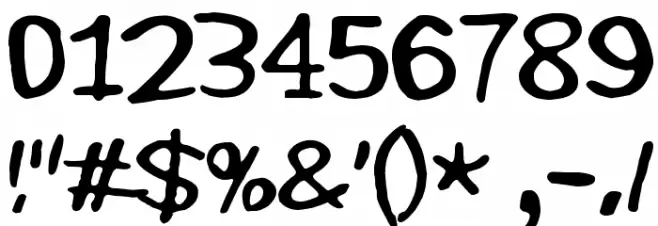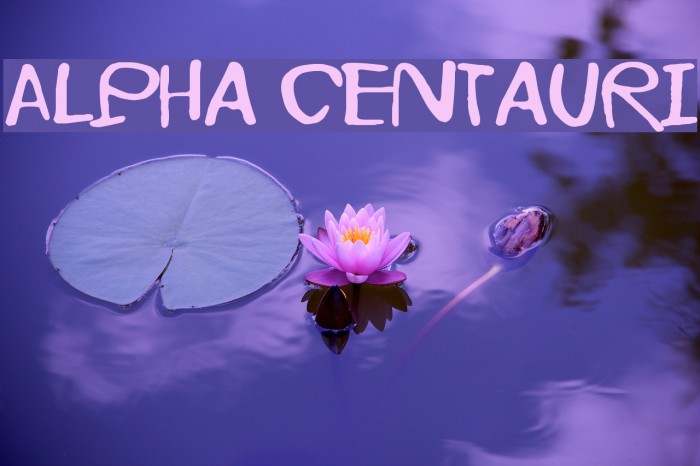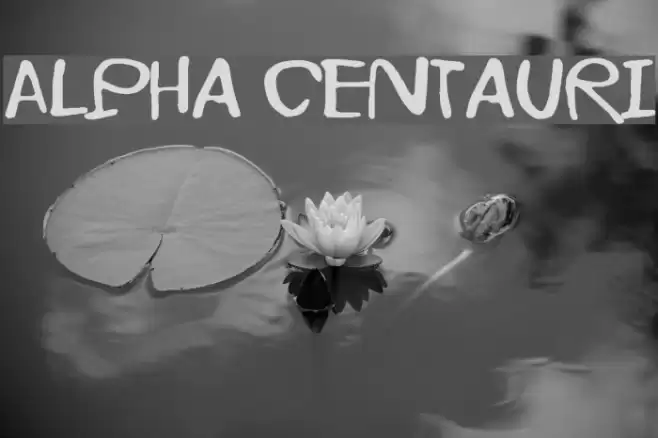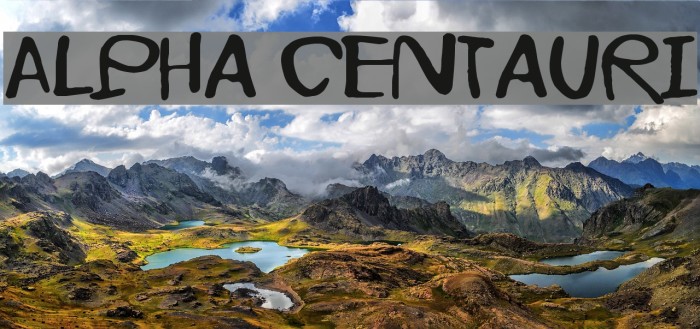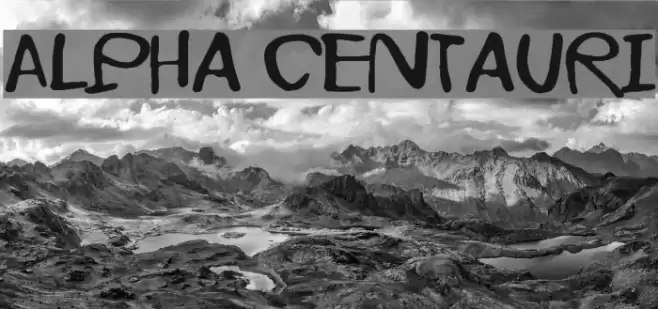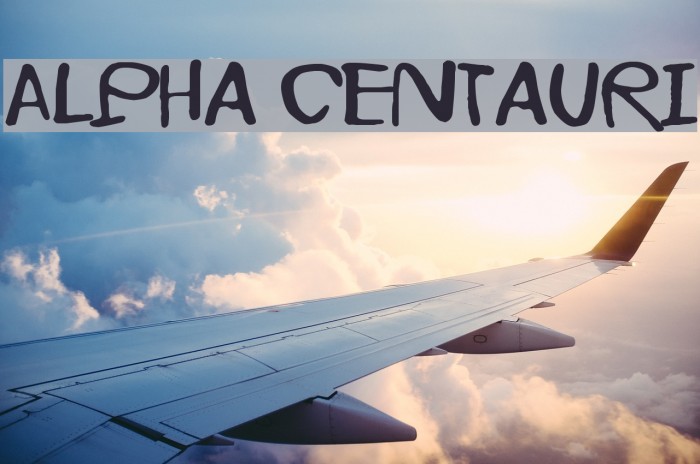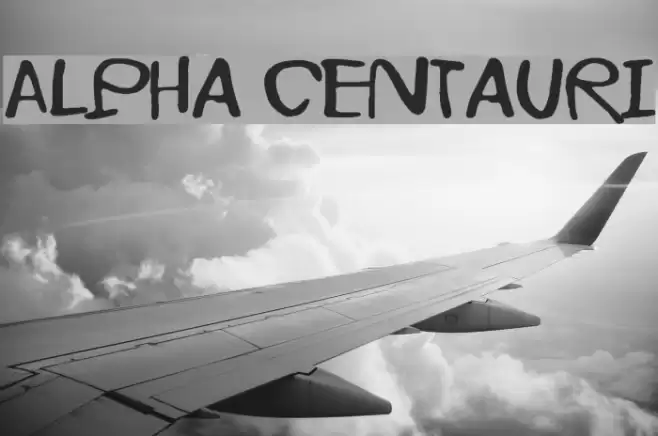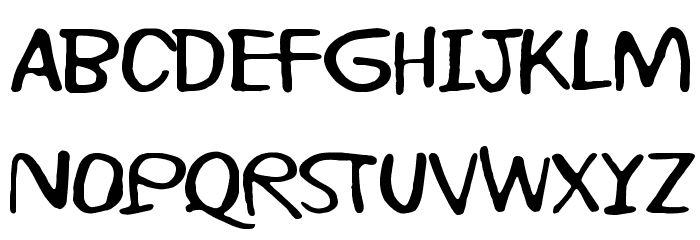
Alpha Centauri Font
Alpha Centauri Description
This font features a playful and dynamic handwritten style, characterized by its bold and slightly irregular strokes. The letters have a casual, informal appearance, with varying thickness that adds a sense of movement and energy. The uppercase and lowercase letters maintain a consistent style, with rounded edges and a slightly slanted orientation. The numbers and special characters follow the same aesthetic, ensuring a cohesive look across all glyphs. This font's unique personality makes it stand out, offering a friendly and approachable vibe.
| Overall Style | Playful |
| Use Case | Logos, Headlines, Posters |
| Proposed Projects | Ideal for children's books, playful branding, greeting cards, and creative posters. |